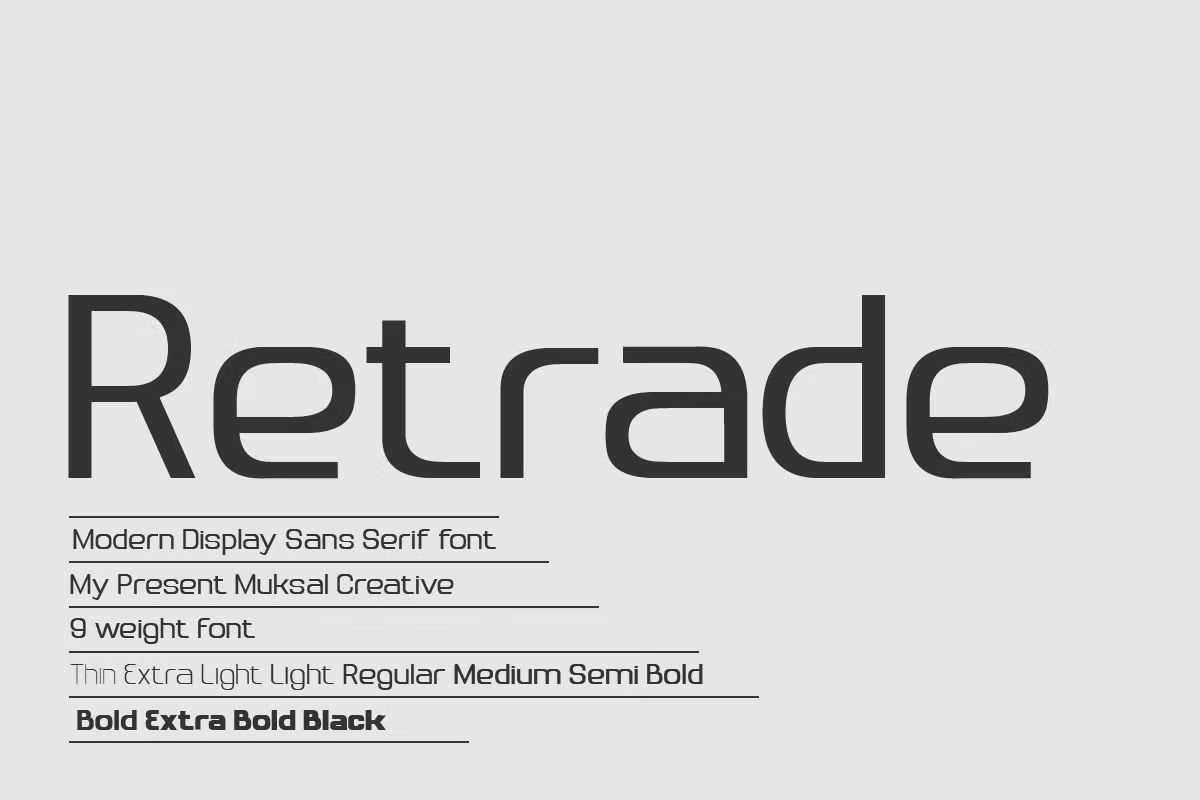
Retrade Font Free Download is a bold and versatile typeface designed to bring strength and impact to your creative projects. With its sharp edges, modern style, and clean lines, this font is perfect for branding, posters, logos, packaging, and any design that demands attention.
Whether you’re building a contemporary brand identity, creating eye-catching promotional materials, or designing a striking headline, Retrade Font adds clarity, power, and professionalism to your typography. It’s the ideal choice for designers who love strong, modern design solutions.